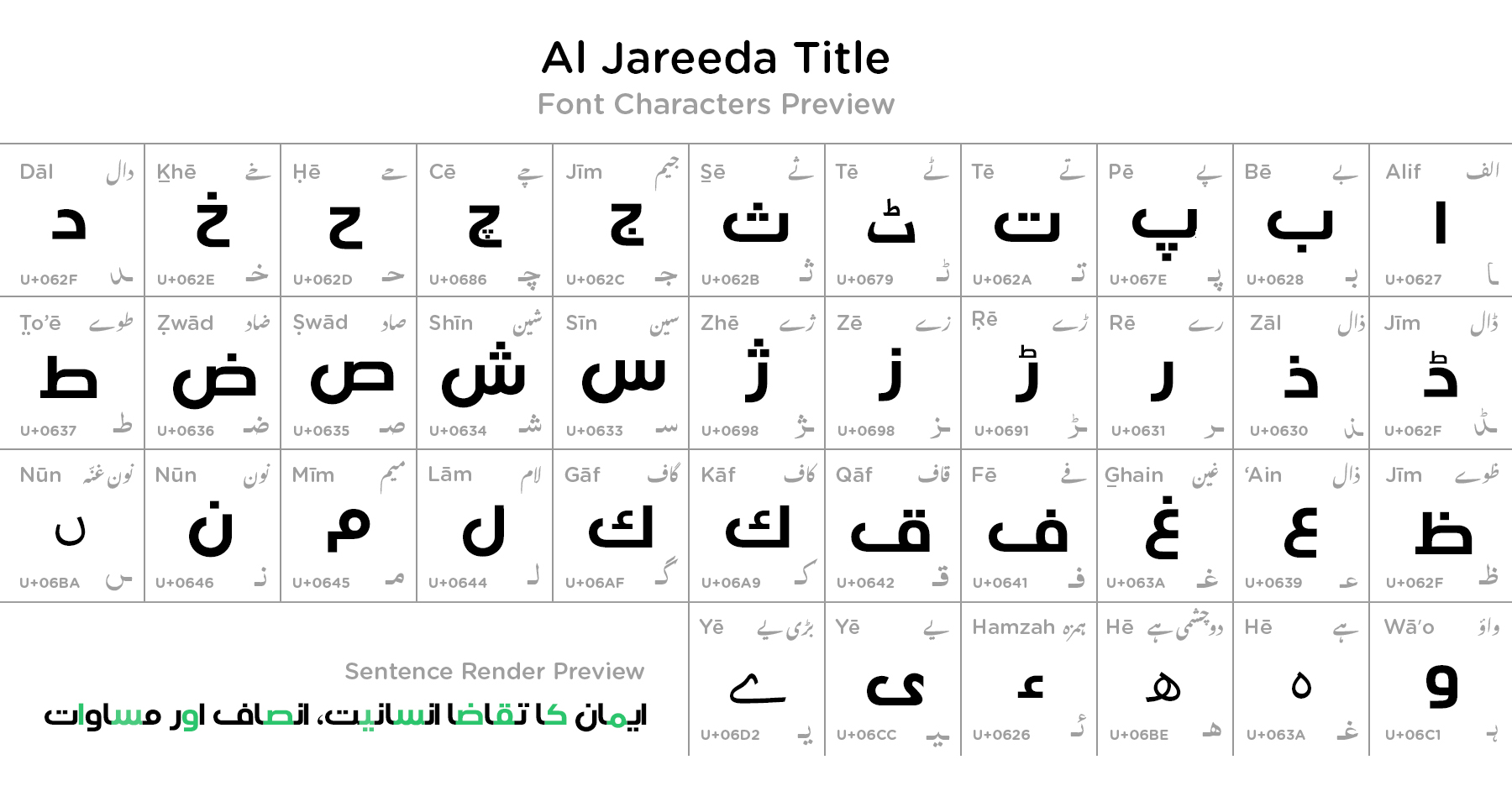
Al Jareeda Title was introduced by BrandCentral Ltd. on May 26, 2021. It is a contemporary bold Qalam writing Arabic font family inspired by Naskh calligraphy. This font boasts 871 characters and 791 glyphs, providing versatility for various design applications. It supports Arabic, Latin, Greek, and Urdu languages, catering to diverse typographic needs. This font type offers a wide and elegant appearance characterized by constant thickness and thin pointy edges. Its solid strokes and curled descenders enhance visual interest, while blunt corners with thin, sharp terminals provide a calligraphic outlook.
Despite its intricacies, the font Title maintains high legibility, even at smaller sizes, thanks to its unembellished and wide letterform. Featuring even and monospaced letter spacing, it ensures consistent readability across different mediums. Although it offers only one weight, its uncluttered and elegant design makes it suitable for both long and short texts. Al Jareeda Title finds applications in headings, titles, creative posters, flyers, logos, and branding projects, delivering impactful messages with its bold presence. Compatible with Unicode blocks covering Basic Latin, Latin-1 Supplement, Arabic, and more, the font Title provides designers with a comprehensive typographic solution for diverse language requirements.